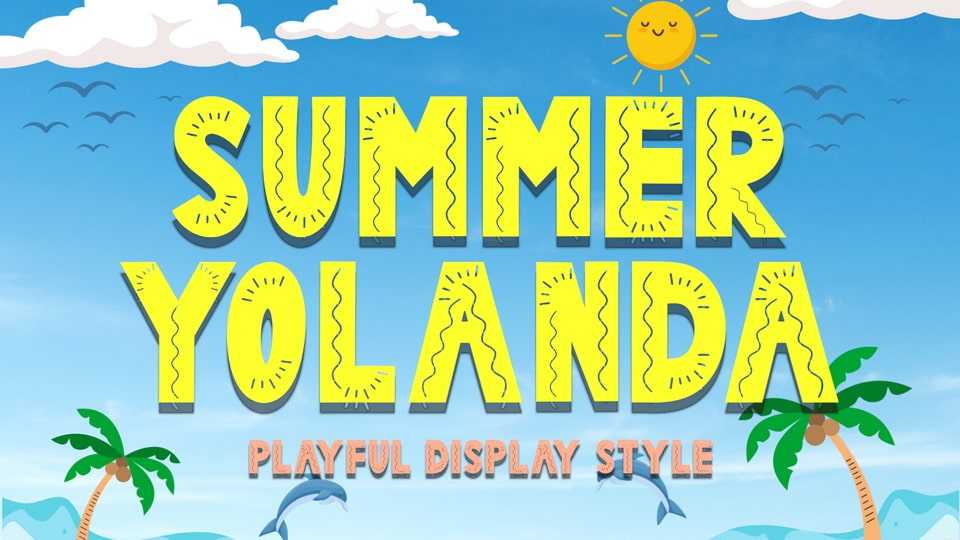
Download Summer Yolanda font, a cute and unique display typeface. It is very suitable for use in summer, holiday, vacation, spring, invitation, birthday, poster, banner, print, sticker, logo and others.